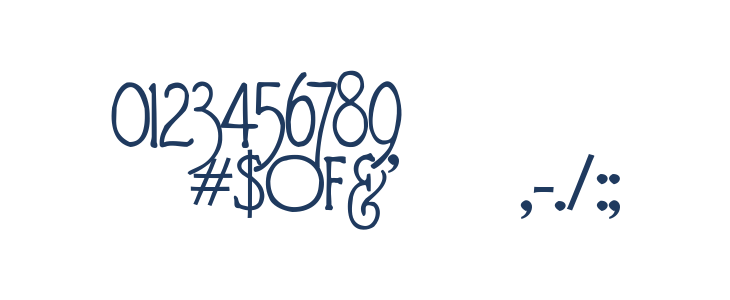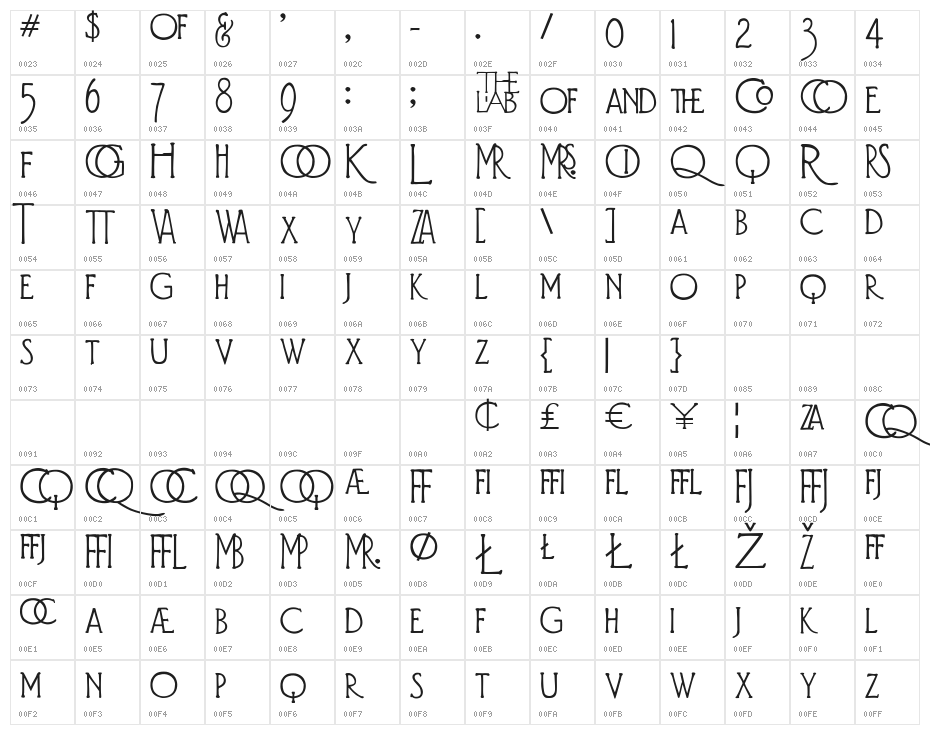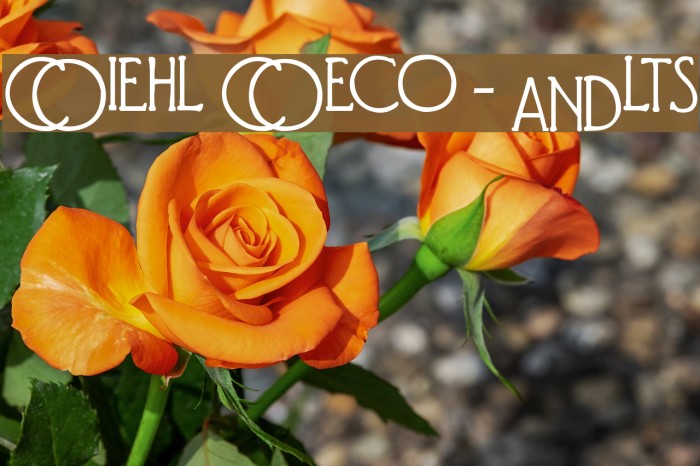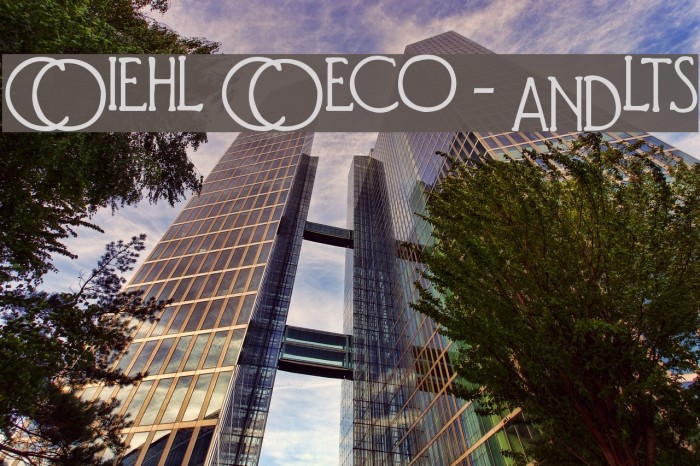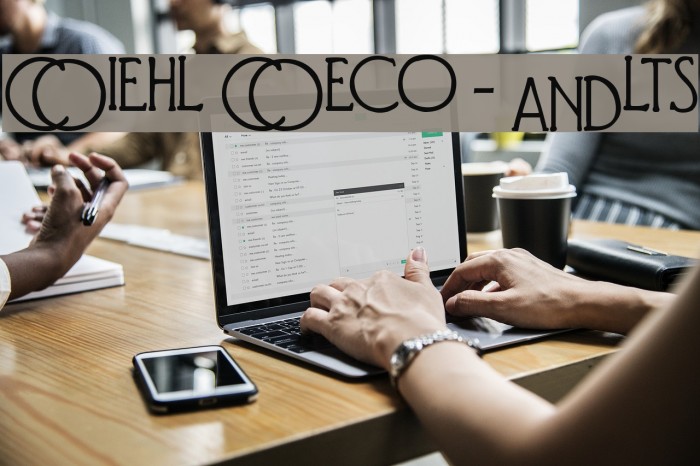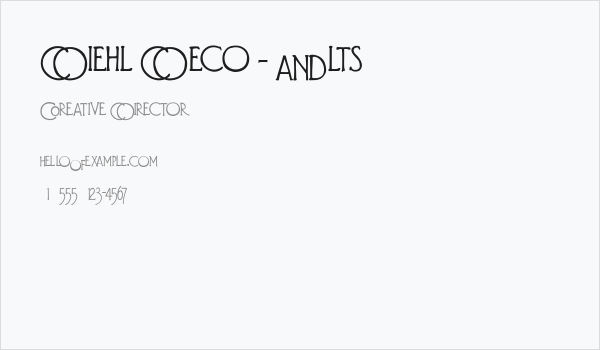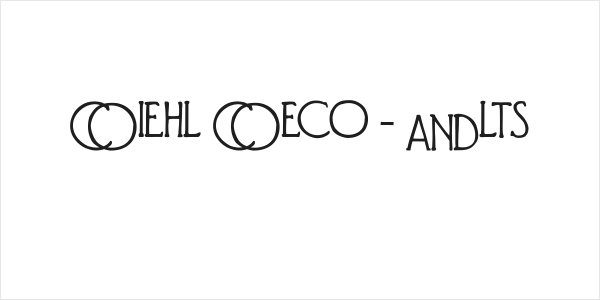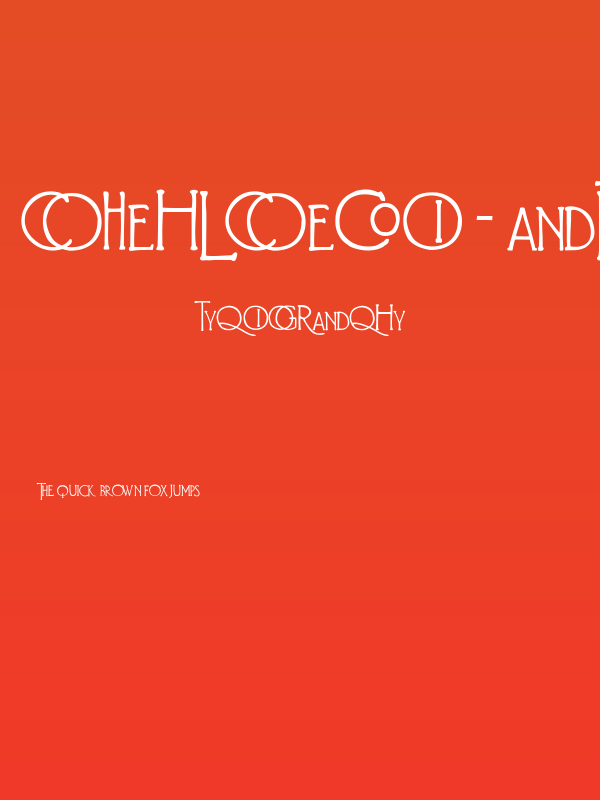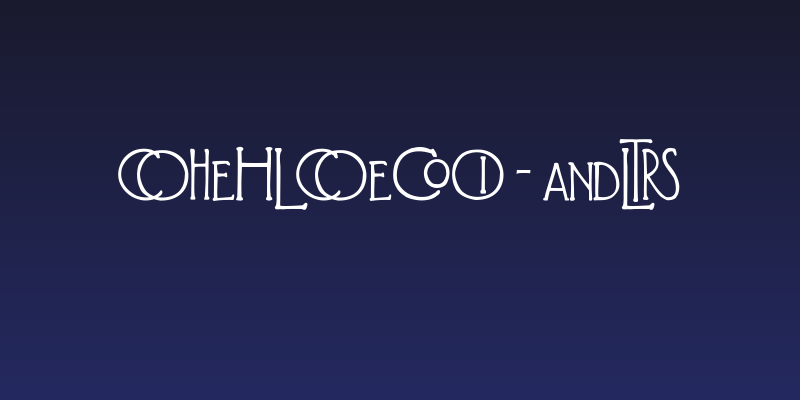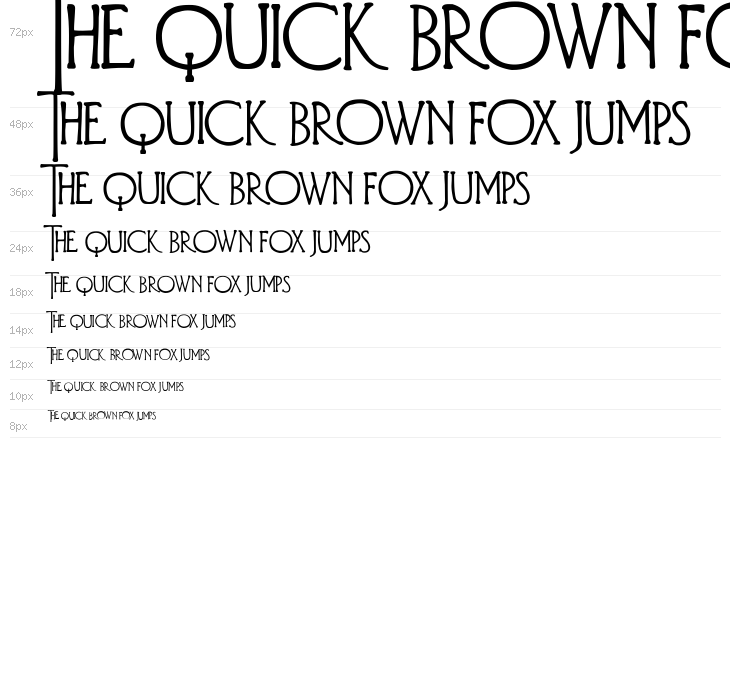
Diehl Deco - Alts Font
Diehl Deco - Alts Description
This font exhibits a unique blend of Art Deco influences with a modern twist. The uppercase letters are characterized by their geometric shapes and clean lines, while the lowercase letters maintain a consistent style with slightly more curves. The numerals are distinct, with a playful yet sophisticated appearance. Special characters are creatively designed, adding to the font's decorative appeal. The overall design is both elegant and bold, making it suitable for a variety of creative projects.
| Proposed Projects | Ideal for branding, posters, invitations, and any project requiring a touch of vintage elegance. |